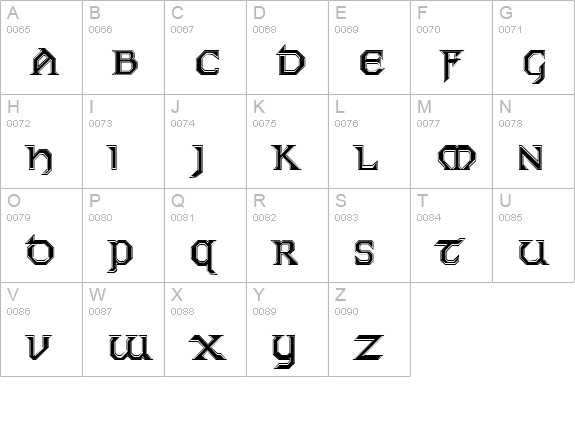
KarthagoInline Font Details
KarthagoInline font is a stunning display typeface that exudes elegance and sophistication. Its sleek and modern design is perfect for creating eye-catching headlines, posters, and branding materials. The font features clean lines and sharp angles that give it a contemporary edge, making it ideal for projects that require a touch of modernity. What sets KarthagoInline font apart is that it is available for free download at FontsMarket.com. This means that you can easily access this high-quality typeface without any cost, making it a valuable addition to your font collection. Whether you are a designer, artist, or enthusiast looking to elevate your designs, KarthagoInline font is a versatile choice that will surely make your creations stand out. Download it today and unleash your creativity with this stunning typeface!